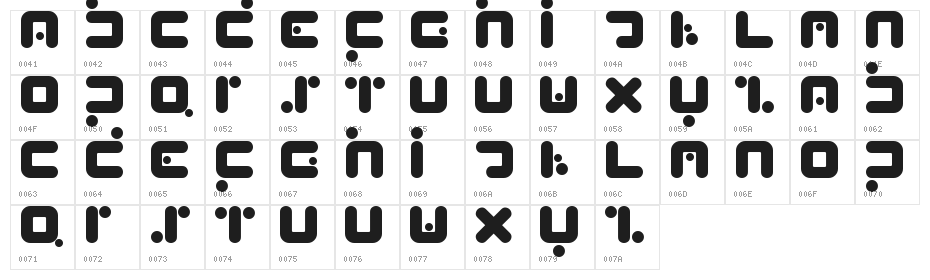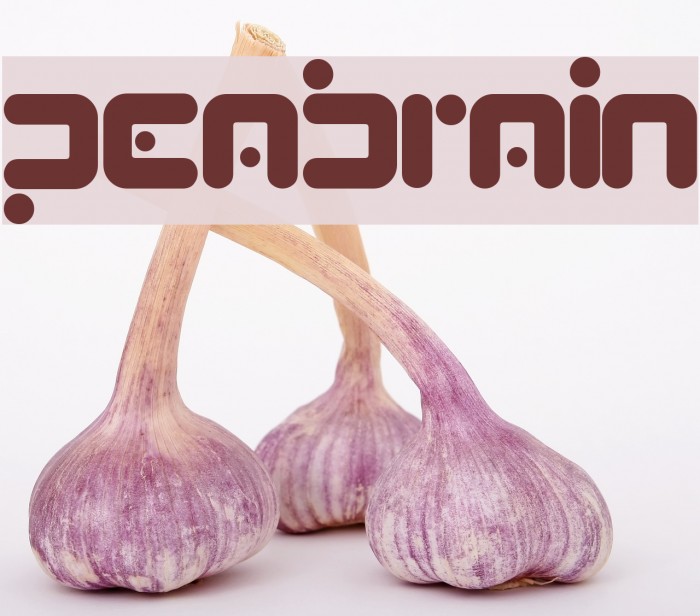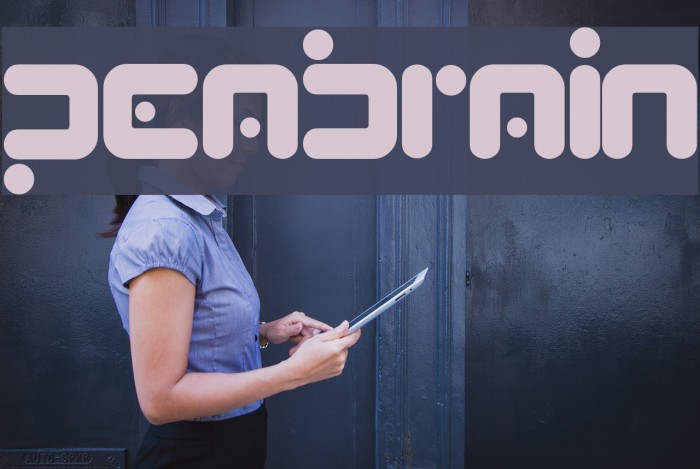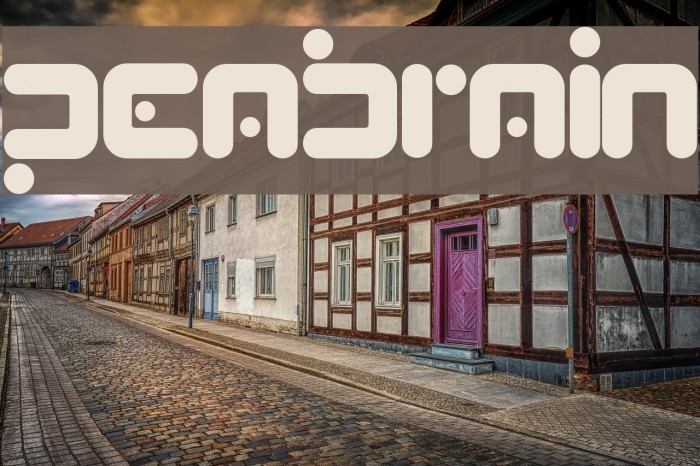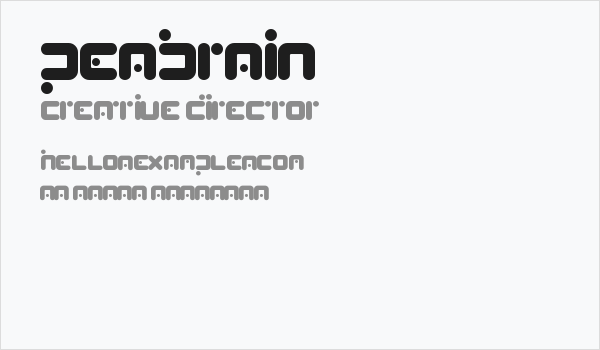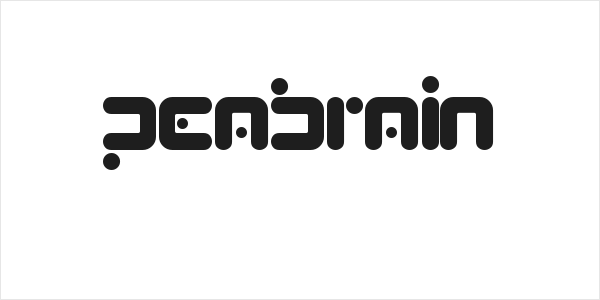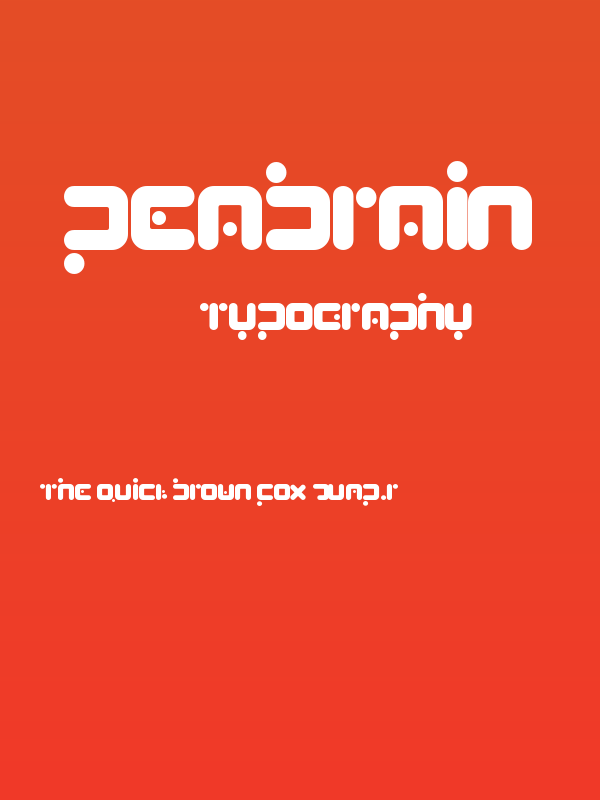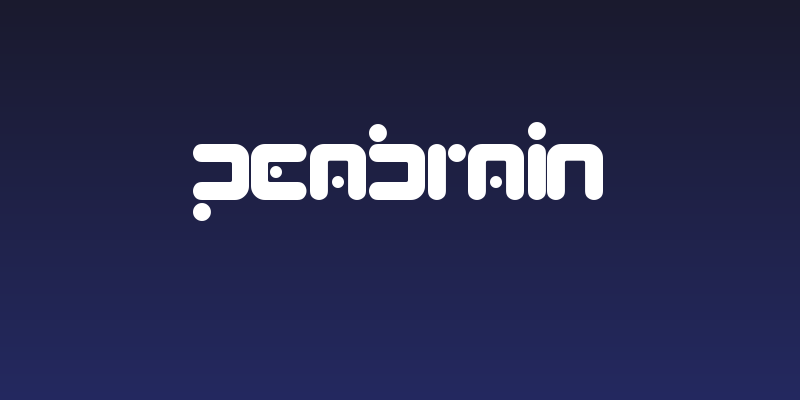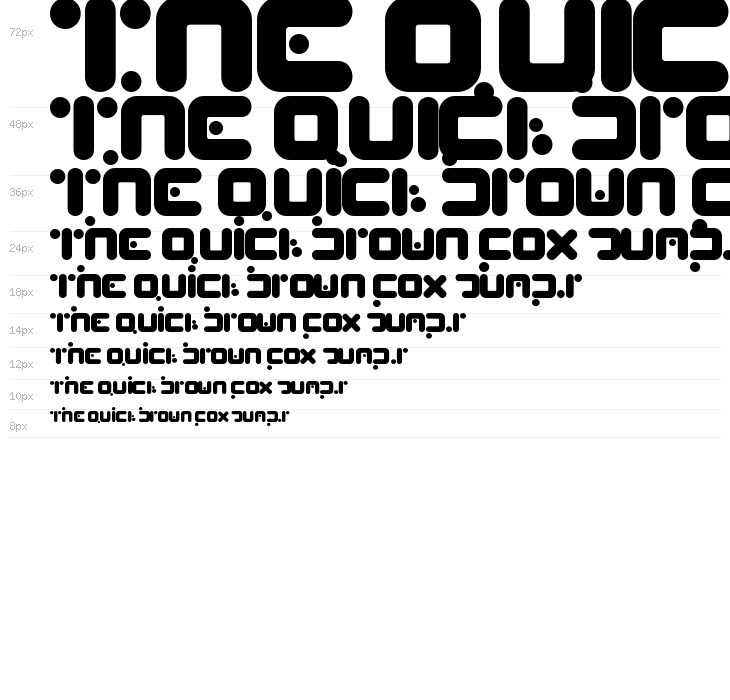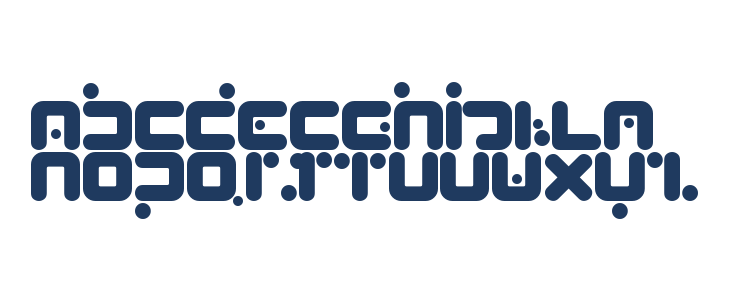
PeaBrain Font
PeaBrain Description
This font features a unique, futuristic design with rounded, geometric shapes and a distinct dot pattern incorporated into each character. The letters are bold and have a uniform thickness, creating a cohesive and modern appearance. The design is highly stylized, making it suitable for creative and artistic projects. The characters are evenly spaced, contributing to a balanced and harmonious look. The font's playful and innovative style makes it stand out, ideal for projects that require a distinctive and eye-catching typeface.
Overall StyleFuturistic
Use CaseLogos, Headlines, Posters
Proposed ProjectsIdeal for sci-fi themed designs, modern branding, digital art projects, and innovative product packaging.